In Singapore, disciplined grids and a deep culture of order shape the city. The urban landscape is often described as sterile. Too controlled. Too planned.
But if you walk the streets slowly and pay attention, different layers begin to appear. Small details start to speak. Among them, house and shop numbers stand out.
These numbers are more than just markers. They are part of a larger visual rhythm. You can see it unfold across walls, gates, tiles and signboards. They bring life to HDB blocks. They guide you through hawker centres. Some are quiet and standard. Others are bold, expressive or strange.
A few numbers even reflect the city’s multicultural layers. The influence of Peranakan design shows up in the colours, borders or tile work behind them. These touches add warmth and personality to the spaces they occupy.
Some numbers are painted by hand. Others are cut from vinyl. Some are fading. Some are crooked. All of them are part of the street.
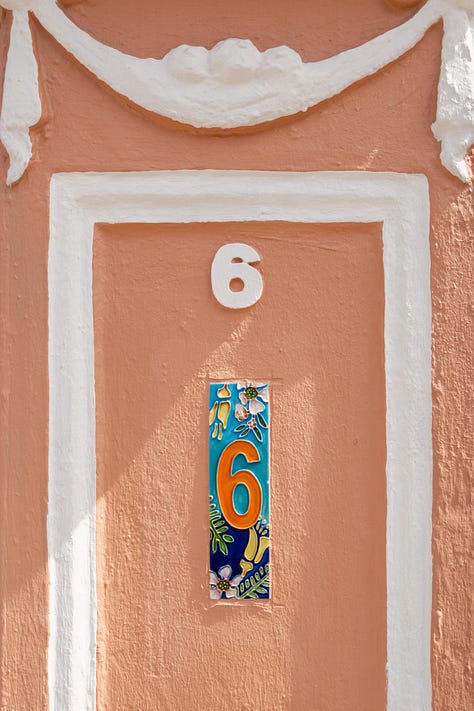
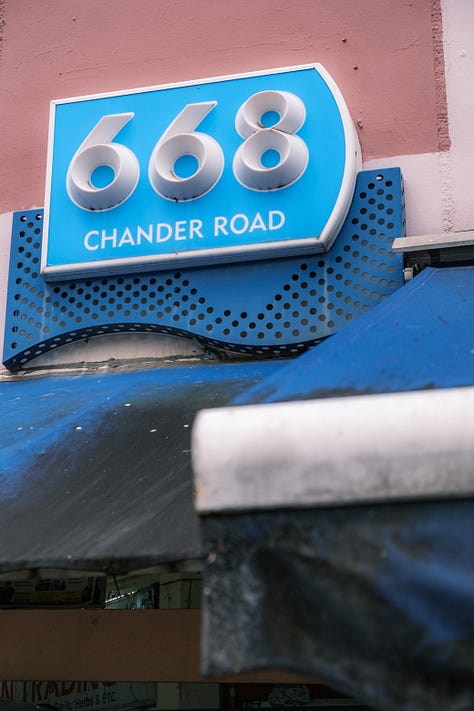
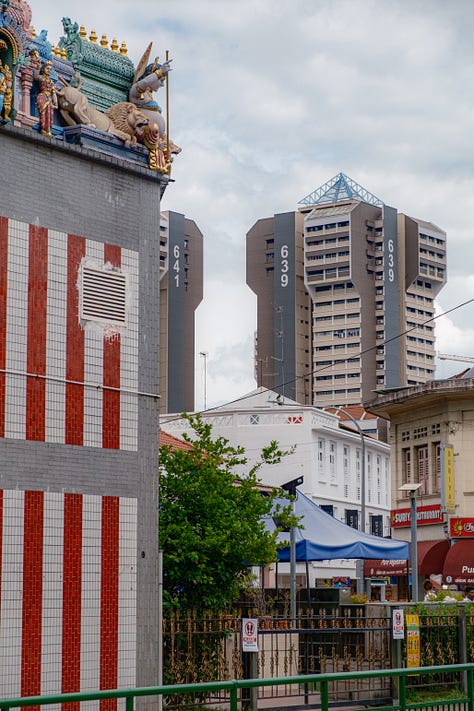
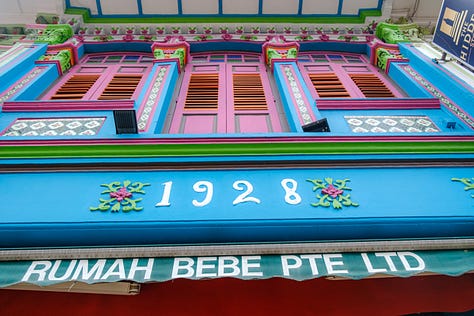
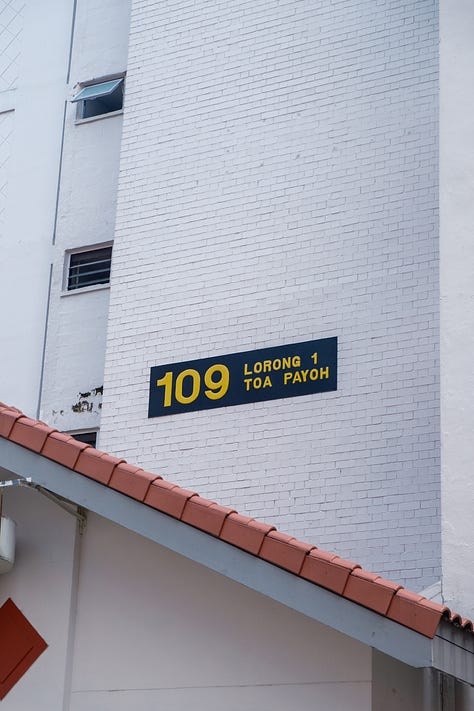
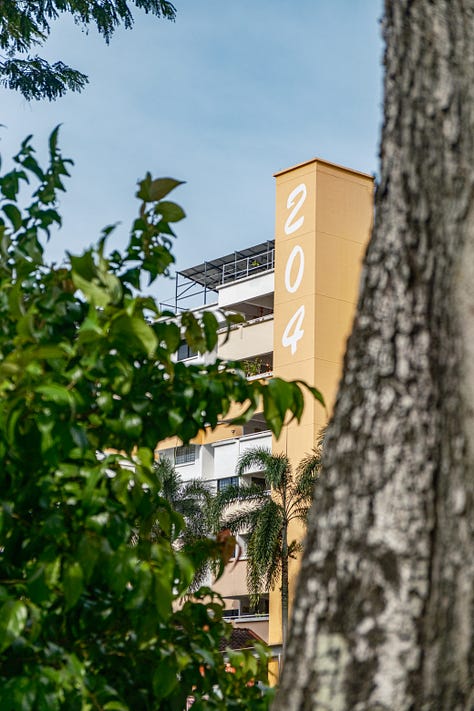
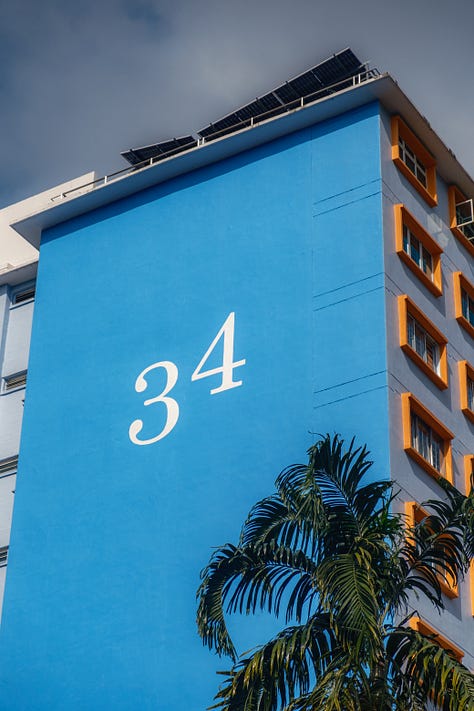
As a visitor, I know I am only scratching the surface. But that process of looking, of noticing small design choices, is at the heart of my work with the Street Type Archive. Typography is never just about type. It is about people, history and place.
This collection of photographs are a way in. A way to begin seeing. A way to read the city not through its skyline but through the quiet signs on everyday walls.
Singapore is not sterile. You just have to look a little closer.